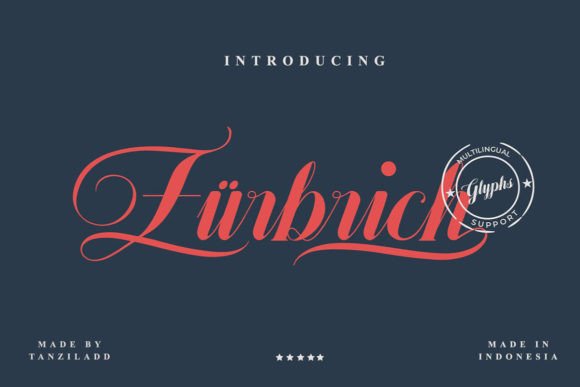
Step into the world of Zürbrich Font, a script font masterpiece that transports you to an era of timeless elegance. The elaborate curves of each letter dance across your screen, captivating your senses with their intricate details and flowing grace. Created by the maestros at JumboDesign, Zürbrich is more than just a font; it's an art form, a symphony of lines and shapes that weaves a tale of sophistication and refinement.
Zürbrich Font is the epitome of class, effortlessly blending the beauty of the past with the demands of the present. Its vintage charm adds an air of nostalgia to your designs, evoking a sense of longing for simpler times. Yet, it remains utterly modern, possessing a crispness and clarity that ensures your message shines through. Whether you're crafting a stunning website header, designing an eye-catching logo, or creating an unforgettable invitation, Zürbrich Font stands ready to elevate your vision.
With Zürbrich Font, you can effortlessly transform your creative endeavors into masterpieces. Its versatile nature allows it to seamlessly adapt to a wide range of projects, from elegant wedding invitations to playful children's books. Whether you seek a font that exudes timeless charm or one that embraces contemporary flair, Zürbrich Font is your perfect companion.
Let Zürbrich Font be the brush that paints your digital canvas with strokes of elegance and sophistication. Experience the joy of creating designs that captivate and inspire, leaving an enduring impression on all who encounter them. Embrace the allure of Zürbrich Font today and embark on a journey of creativity that knows no bounds.